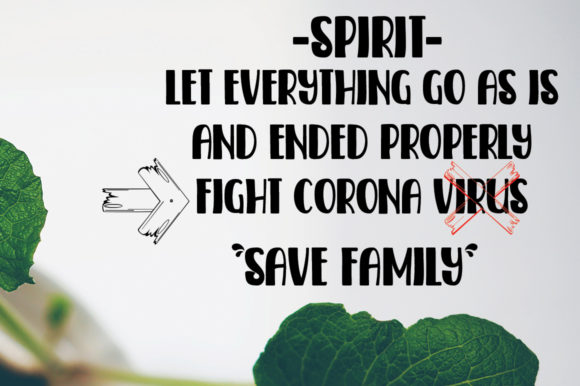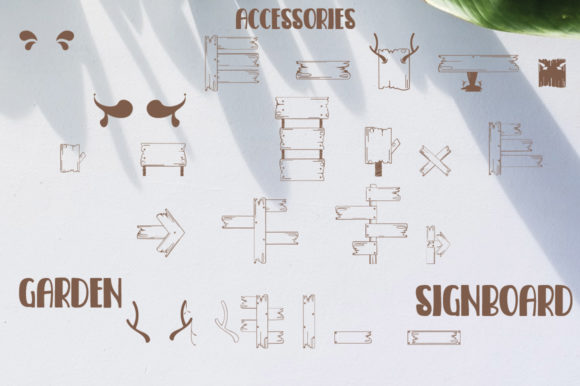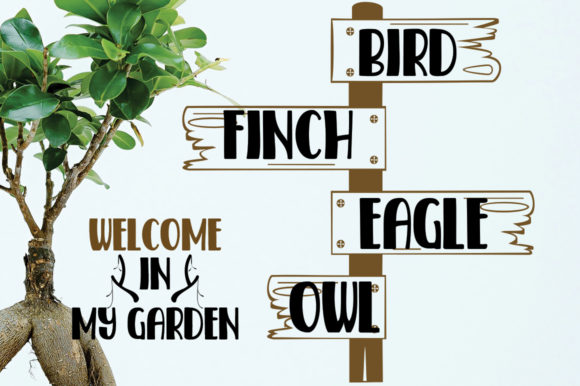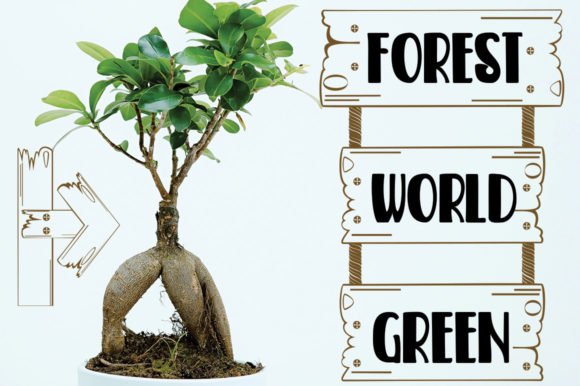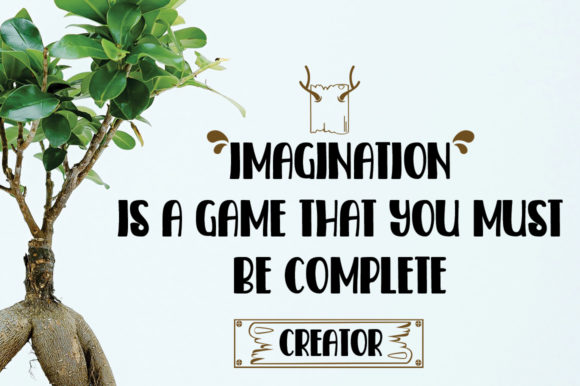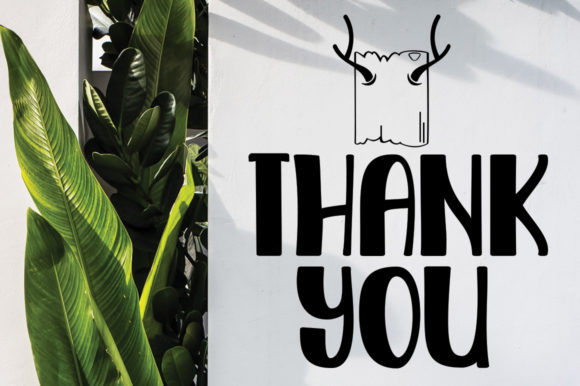
Garden Signboard Font
About Garden Signboard Font
Garden Signboard is a friendly and script font with a one-of-a kind style. It will add a playful touch to any crafting project.